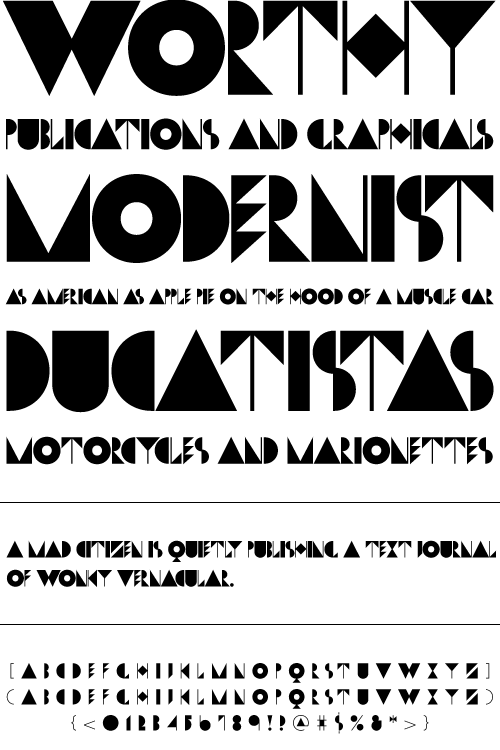
Dwiggins Deco
This typeface was originally designed in 1930 by W.A. Dwiggins as the cover for the book "American Alphabets" by Paul Hollister. Only the 26 letters of the alphabet were included on the cover, so the rest of the numbers, punctuation, symbols, and accented characters have been crafted in a matching style. This strongly geometric Art Deco lettering style has been lovingly revived and is now available as an OpenType font. Over 3,300 kerning pairs are included.